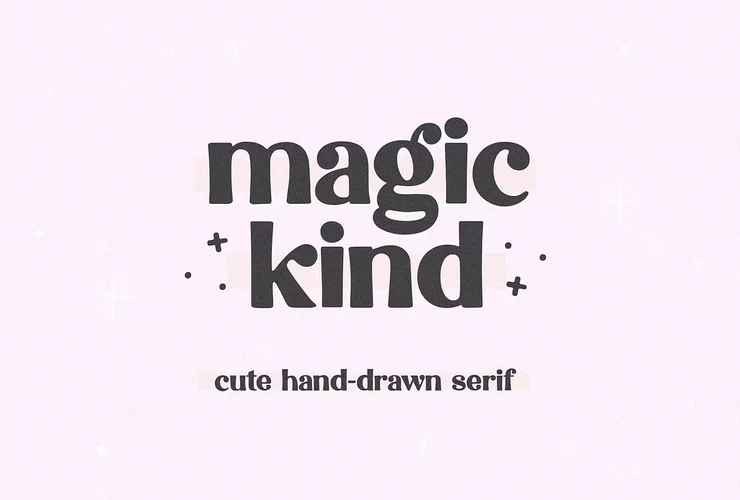
Magickind: The Perfect Hand-Drawn Serif Font for Retro Designs
Magickind is a charming hand-drawn serif font that adds a touch of nostalgia to any design project. Crafted with care, this font is ideal for a variety of creative applications, from retro-themed designs to modern branding projects. Whether you’re working on logos, t-shirts, mugs, stickers, or even digital content for platforms like Procreate and Cricut, Magickind offers the perfect blend of vintage flair and contemporary usability.
Why Choose Magickind?
Magickind stands out with its unique hand-drawn aesthetic, making it a versatile choice for designers looking to infuse their work with a personalized, handcrafted touch. The font’s retro appeal is perfect for projects that require a nostalgic vibe, but its clean, serif structure also ensures it’s suitable for more formal applications like packaging, advertisements, and quotes.
Key Features of Magickind:
Hand-Drawn Aesthetic: The authentic, hand-drawn quality of Magickind adds character and uniqueness to your designs, setting them apart from more polished, digital fonts.
Versatile Applications: From retro logos to modern packaging, Magickind’s versatility makes it a great choice for a wide range of projects, including shirts, mugs, planners, and more.
Ideal for Creative Projects
Whether you’re a designer working on a new brand identity or a teacher creating educational materials, Magickind provides the flexibility and charm needed to make your projects stand out. Its retro-inspired design is perfect for crafting unique logos, eye-catching stickers, and memorable advertisements.
Explore Magickind today and see how this hand-drawn serif font can elevate your next creative endeavor.